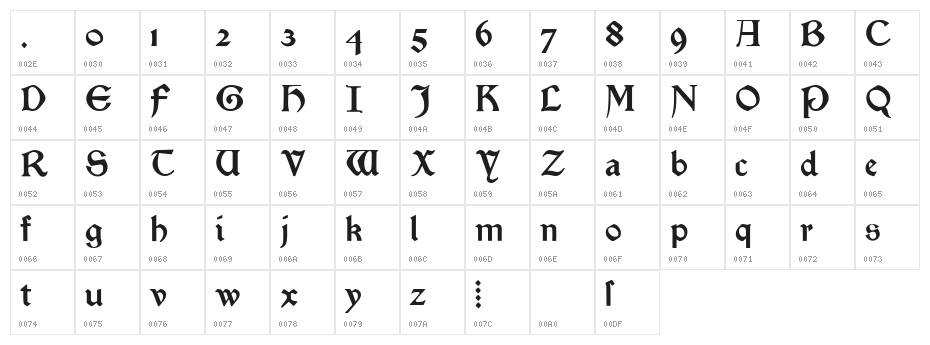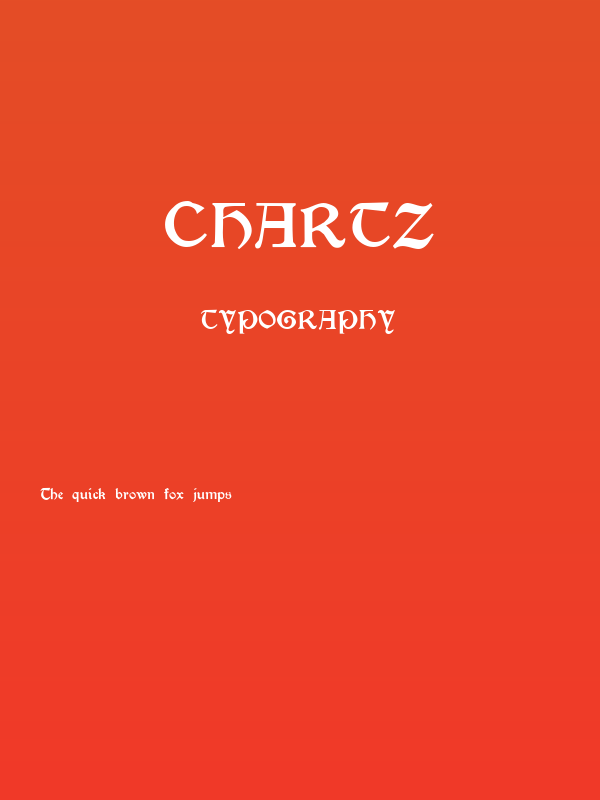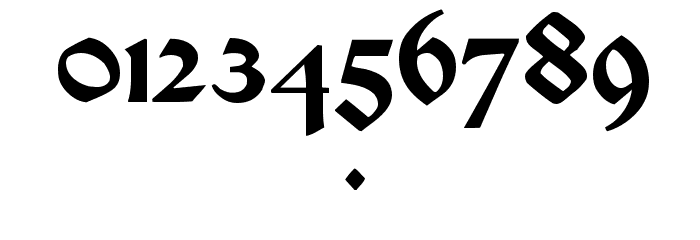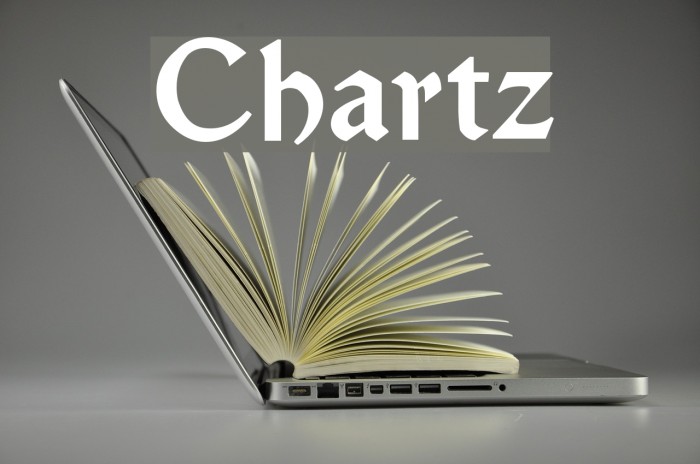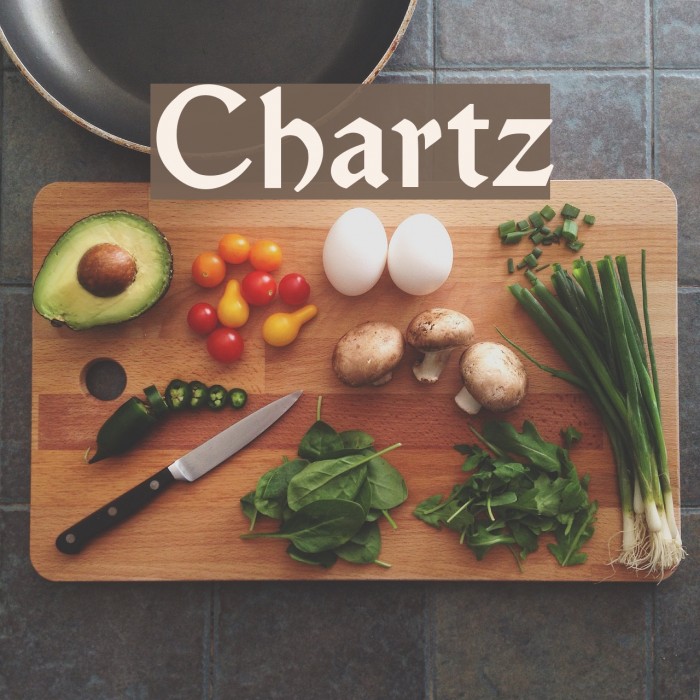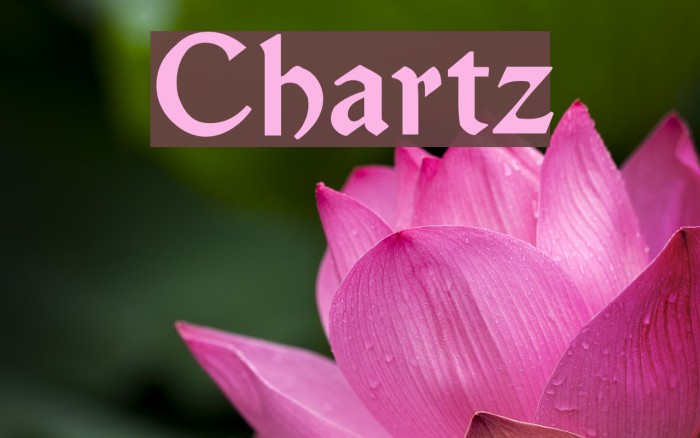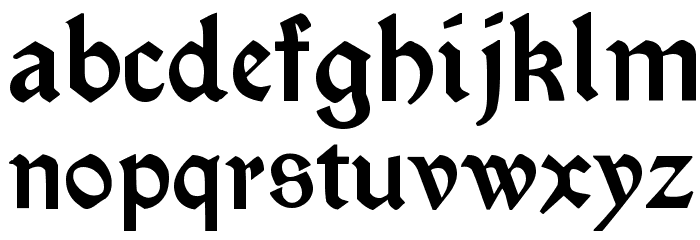
Chartz Font
Chartz Description
This font features a distinct and bold style reminiscent of traditional blackletter typefaces, characterized by its sharp, angular lines and intricate detailing. The uppercase letters exhibit a strong presence with their elaborate serifs and unique flourishes, particularly noticeable in letters like 'G' and 'Q'. The lowercase letters maintain a consistent style, offering a harmonious blend of curves and angles. Numerals are crafted with a similar attention to detail, ensuring readability while maintaining the font's overall aesthetic. This typeface is ideal for projects requiring a historical or medieval touch, providing a sense of elegance and formality.
| Proposed Projects | Suitable for historical documents, medieval-themed designs, book covers, and event invitations. |